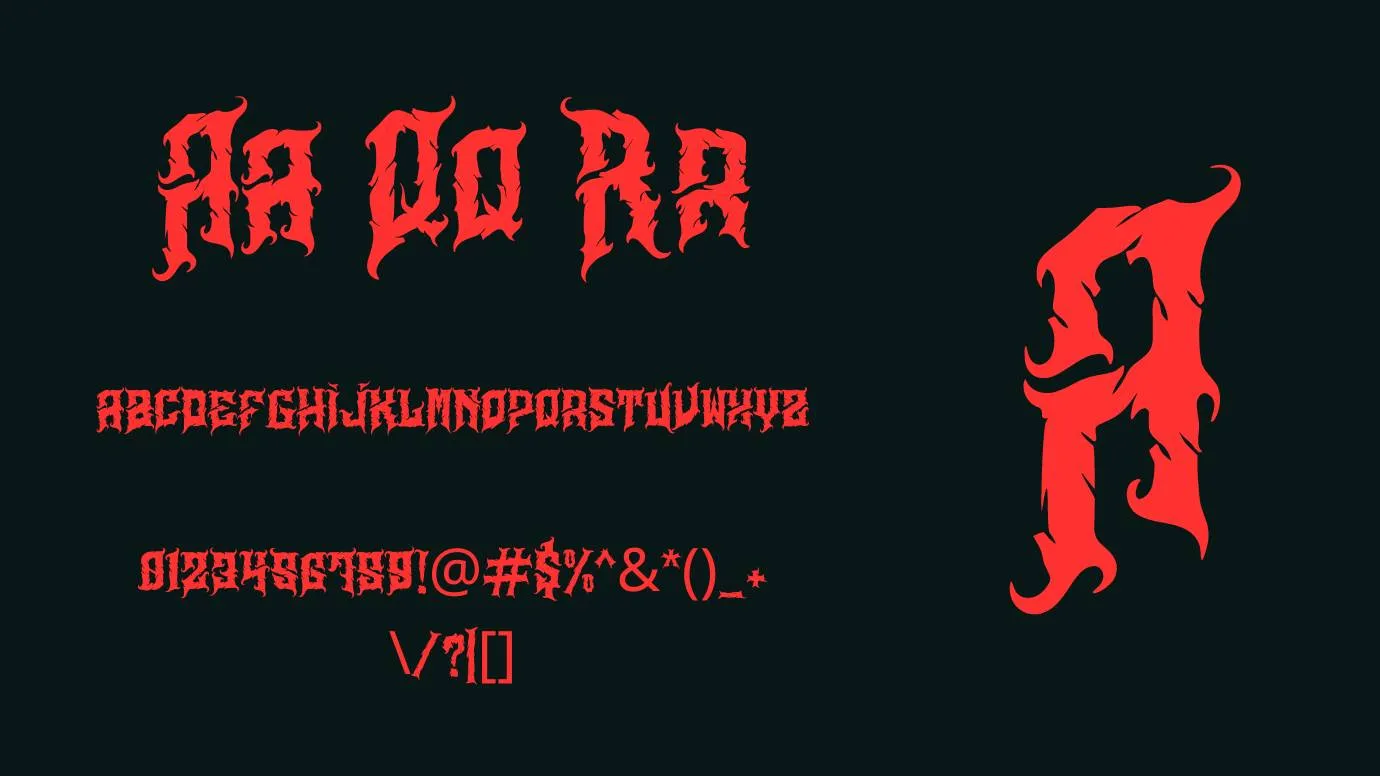
Aligator typeface is a very attractive Gothic font that has a very unique look. It was designed by Risman Ginarwan and manufactured by Garisman Studios.
Aligator Font